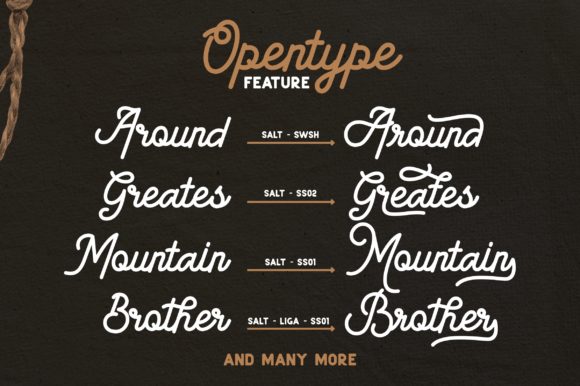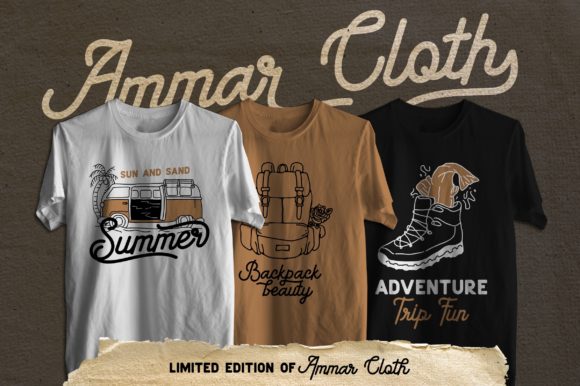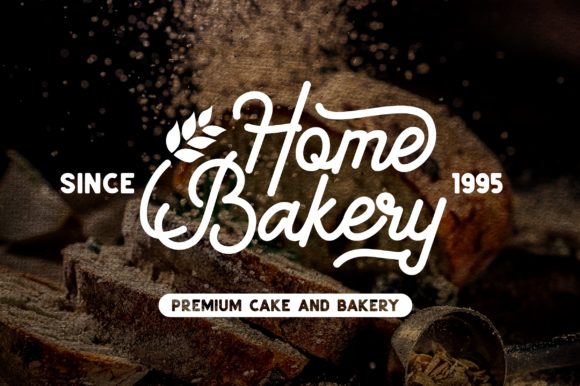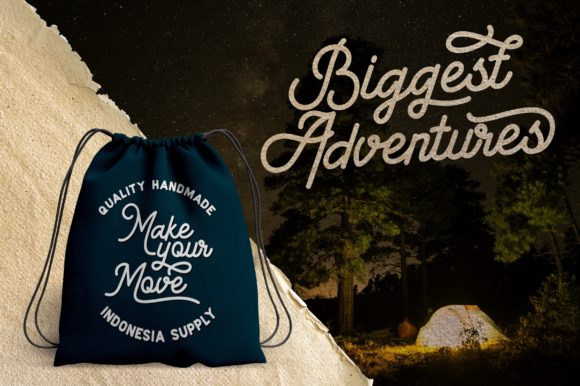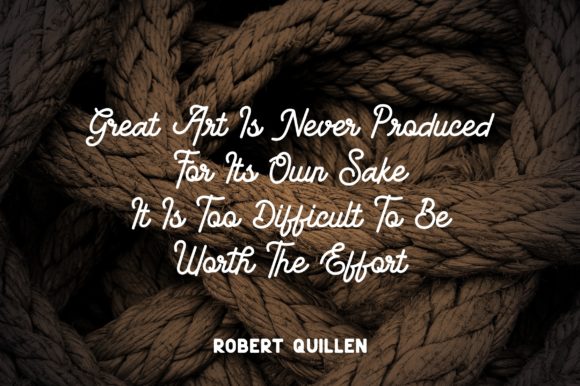
Introducing American Lemon Font: Elevate Your Designs with a Vintage Twist
Are you a designer or crafter looking for a unique and captivating font to add a touch of nostalgia to your projects? Look no further than the American Lemon Font, a stunning vintage font duo that is sure to make your designs stand out. In this article, we’ll dive into the world of American Lemon, exploring its features, benefits, and uses, as well as provide tips and inspiration for incorporating this beautiful font into your work.
The Story Behind American Lemon Font
American Lemon Font is a carefully crafted font duo that combines two distinct styles to create a cohesive and visually appealing package. The fonts are designed to evoke a sense of nostalgia and timelessness, with a beautiful feel that is reminiscent of classic American typography. Whether you’re working on a branding project, creating invitations, or designing packaging, American Lemon Font is the perfect choice for adding a touch of vintage charm.
Key Features of American Lemon Font
- Vintage-inspired design: American Lemon Font boasts a unique, distressed look that adds a touch of nostalgia to any design.
- Font duo: The package includes two complementary fonts that can be used together or separately to create a wide range of design effects.
- High-quality: The fonts are meticulously crafted to ensure crisp, clear lines and a professional finish.
Benefits of Using American Lemon Font
So why choose American Lemon Font for your design projects? Here are just a few benefits of using this amazing font duo:
- Adds a touch of nostalgia: American Lemon Font’s vintage-inspired design instantly adds a sense of history and timelessness to your designs.
- Versatile: The font duo can be used for a wide range of projects, from branding and advertising to packaging and invitations.
- Unique: American Lemon Font’s distinctive design ensures that your projects will stand out from the crowd.
- Easy to pair: The two fonts in the duo are carefully crafted to work well together, making it simple to create harmonious design combinations.
Using American Lemon Font in Your Designs
American Lemon Font is incredibly versatile, and can be used in a wide range of design projects. Here are a few ideas to get you started:
- Branding and logos: Use American Lemon Font to create a unique and memorable brand identity.
- Invitations and stationery: Add a touch of vintage charm to your invitations, business cards, and letterheads.
- Packaging design: Use American Lemon Font to create eye-catching packaging that stands out on store shelves.
- Advertising and marketing: Add a touch of nostalgia to your ad campaigns and marketing materials.
Tips and Tricks for Working with American Lemon Font
Here are a few tips and tricks for getting the most out of American Lemon Font:
- Experiment with font combinations: Try pairing American Lemon Font with other fonts to create unique and interesting design effects.
- Play with color: American Lemon Font looks great in a range of colors, from bold and bright to muted and pastel.
- Use it sparingly: American Lemon Font is a bold and eye-catching font, so use it sparingly to avoid overwhelming your design.
| Author | ergibi studio |
American Lemon Font is a truly unique and captivating font duo that is sure to elevate your designs to the next level. With its vintage-inspired design, high-quality craftsmanship, and versatility, this font is a must-have for designers and crafters looking to add a touch of nostalgia to their projects. Whether you’re working on branding, packaging, or advertising, American Lemon Font is the perfect choice for creating stand-out designs that leave a lasting impression.